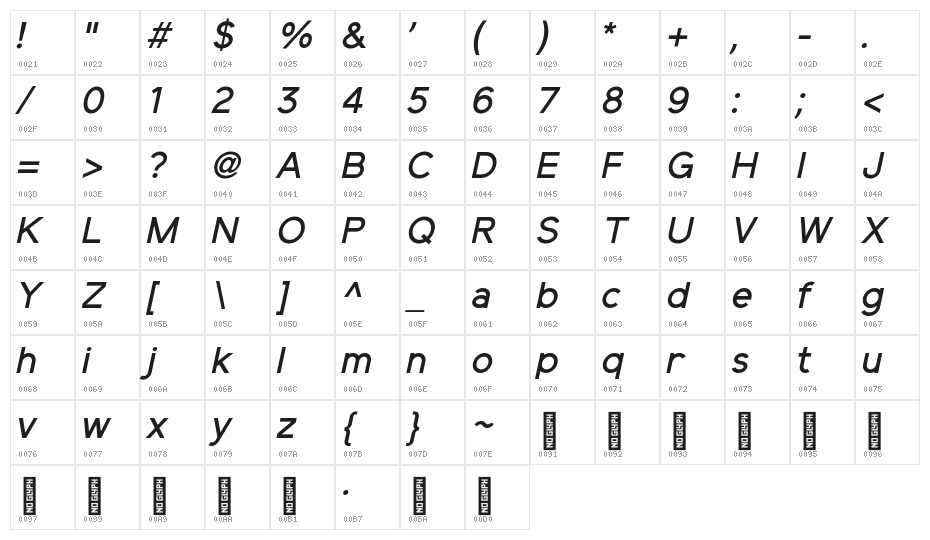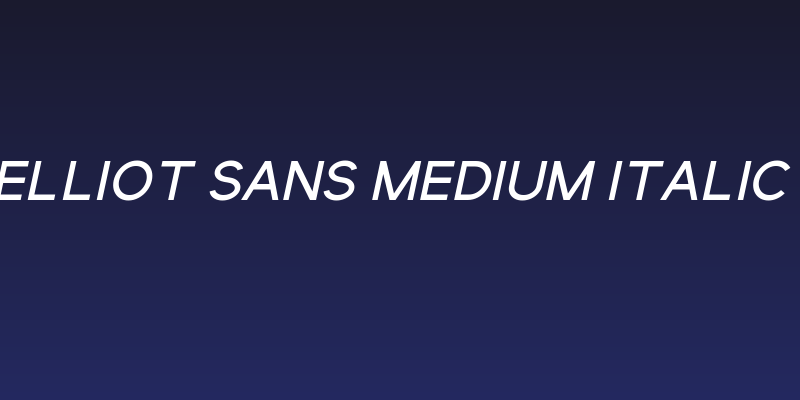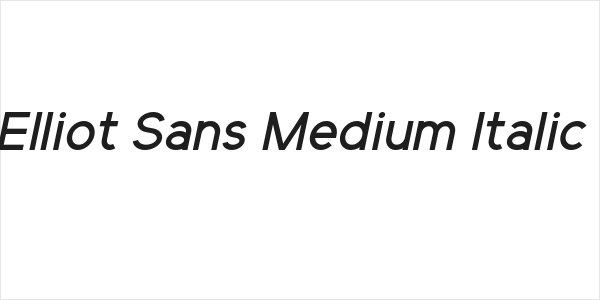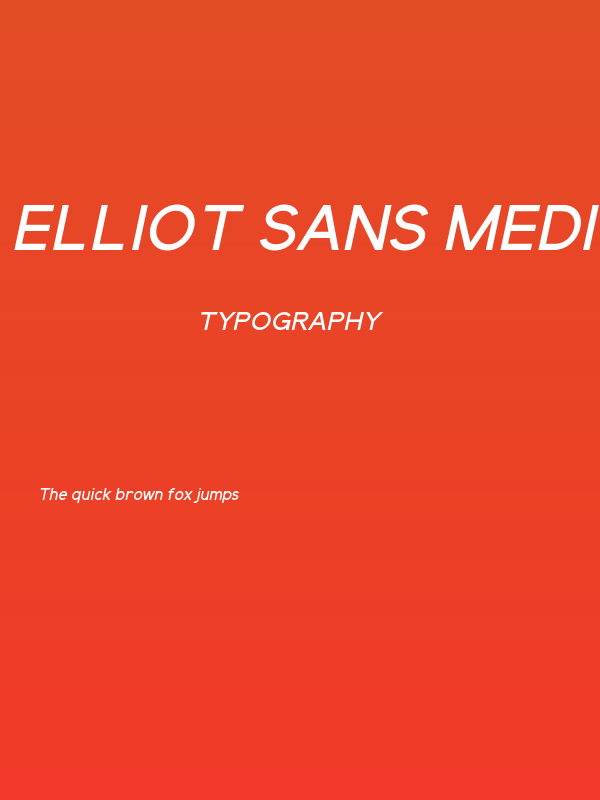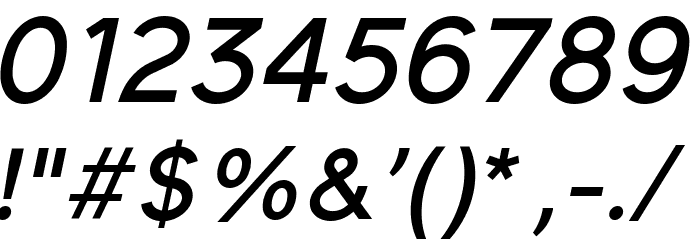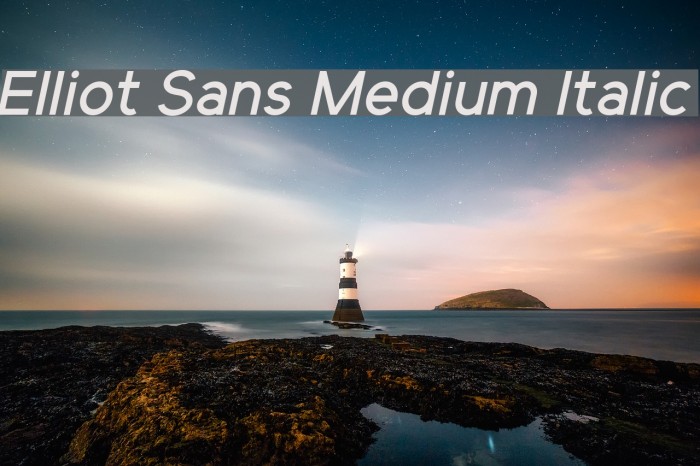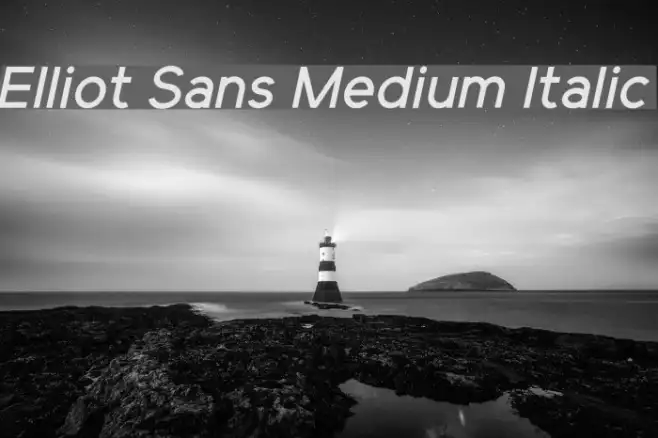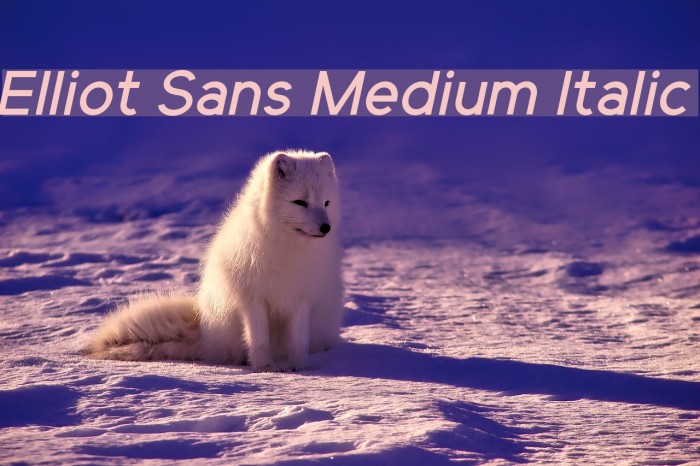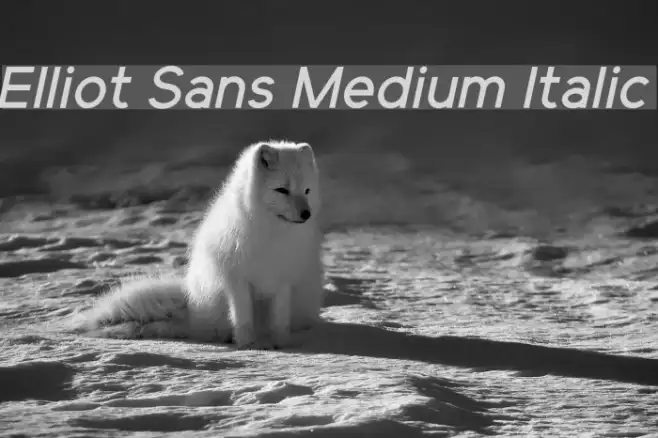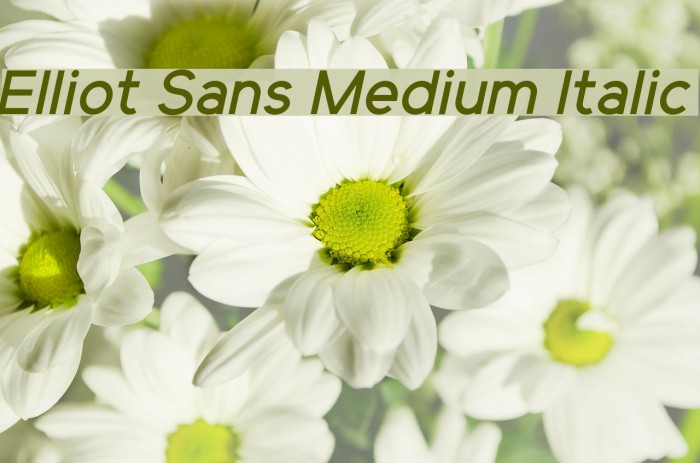
Elliot Sans Medium Italic Font
Elliot Sans Medium Italic Description
This font features a clean and modern sans-serif style with a medium weight and italic slant. The characters are well-defined with a smooth curvature, providing a sleek and professional appearance. The uppercase letters are bold and assertive, while the lowercase letters maintain a consistent flow, enhancing readability. The numerals are clear and balanced, making them suitable for various applications. Special characters are distinct and harmonize well with the overall design, ensuring versatility in usage. The font's italic nature adds a dynamic and elegant touch, making it ideal for contemporary design projects.
| Author | Fonts by Måns Grebäck |